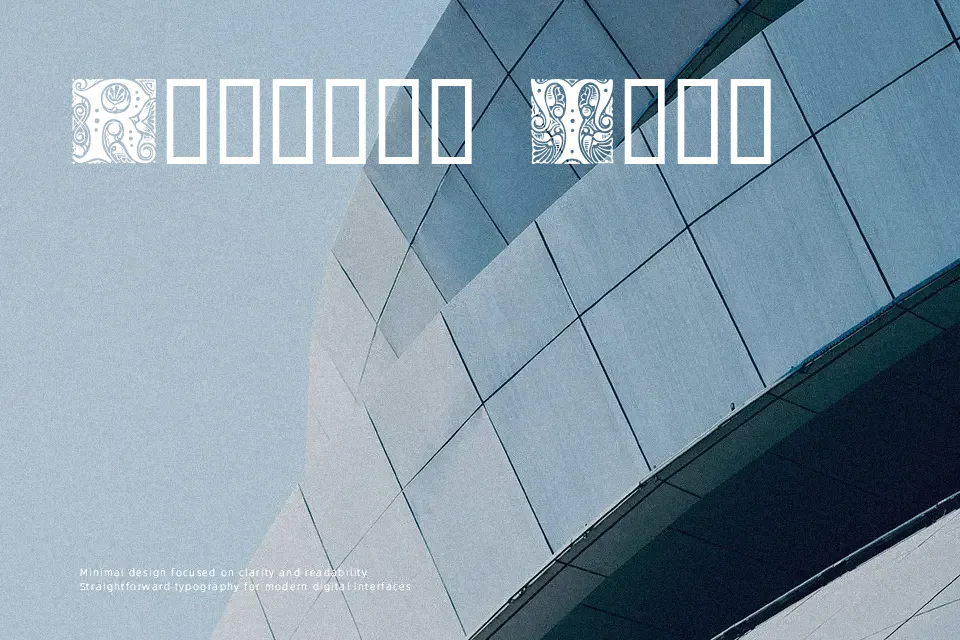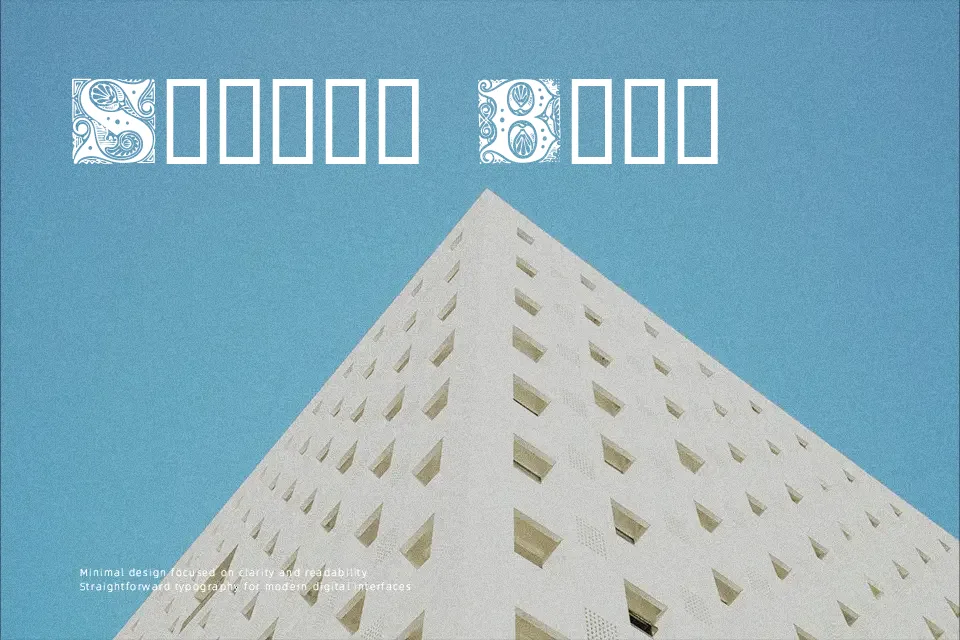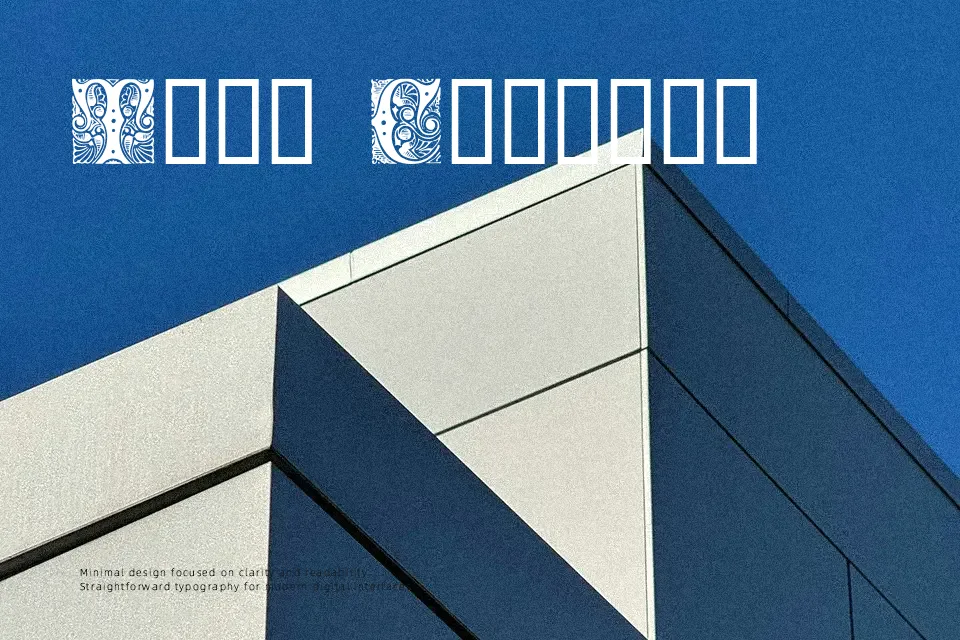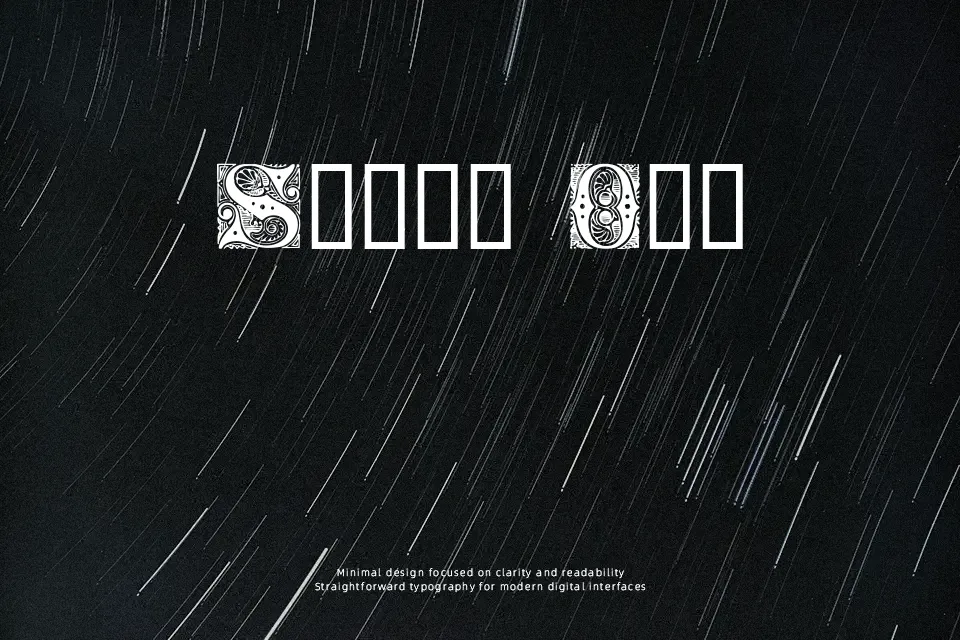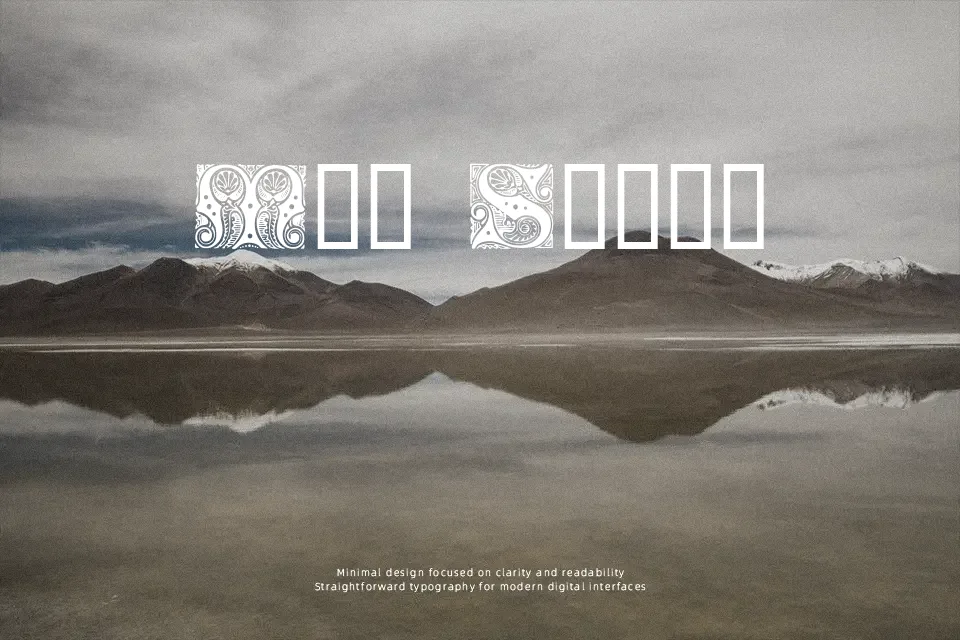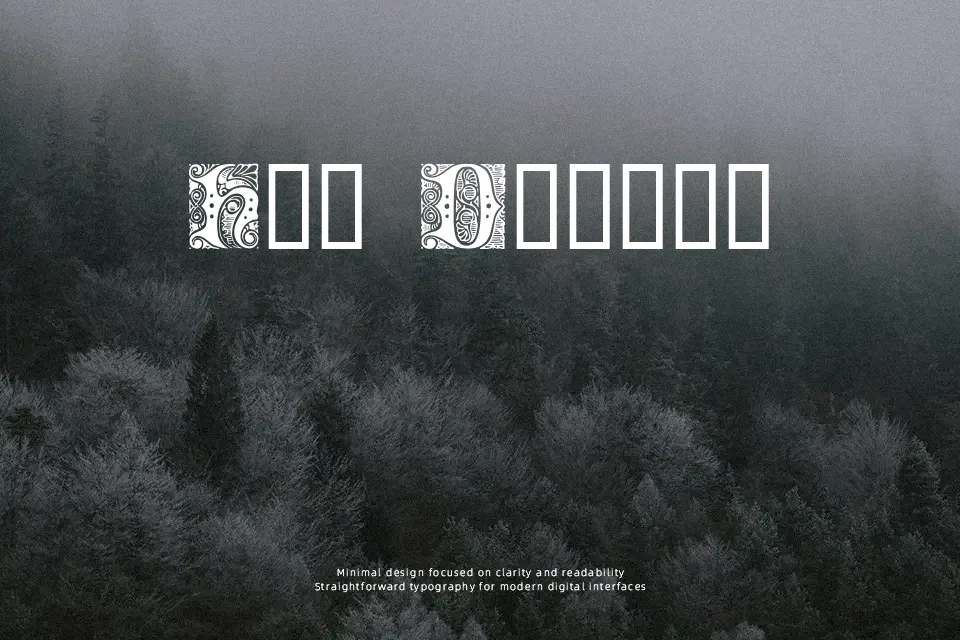
Cheshire Initials Font
Designed by House of Lime
Cheshire Initials Font presents an intricate decorative display aesthetic rooted in traditional illuminated manuscript capitals. Each glyph features heavy primary strokes surrounded by dense ornamental flourishes, maintaining wide, square-like character proportions with generous perimeter spacing to prevent visual crowding. The letterforms remain easy to distinguish at large display scales where elaborate decorative details can be appreciated, making the design well suited for editorial drop caps, vintage book title pages, and historical certificate headers. However, the high visual density severely limits continuous reading comfort, making the typeface unsuitable for running body text or compact mobile user interfaces.
Best For: book chapter drop caps, vintage editorial titles, antique certificate headings, historical event posters
Not Ideal For: continuous body text, mobile interface labels, tabular numerical data, compact caption copy
Perfect for editorial, headline, and invitation, with a artistic and decorative style.